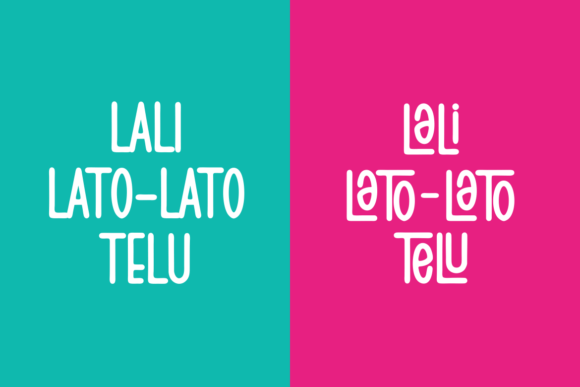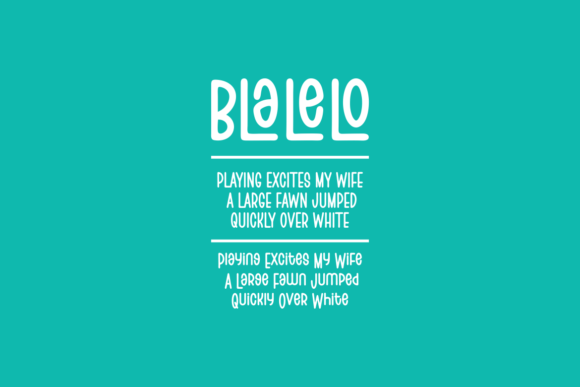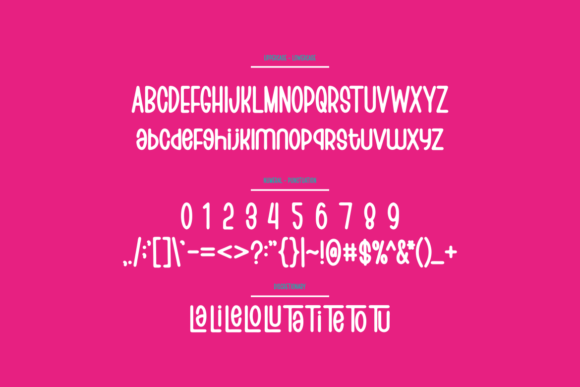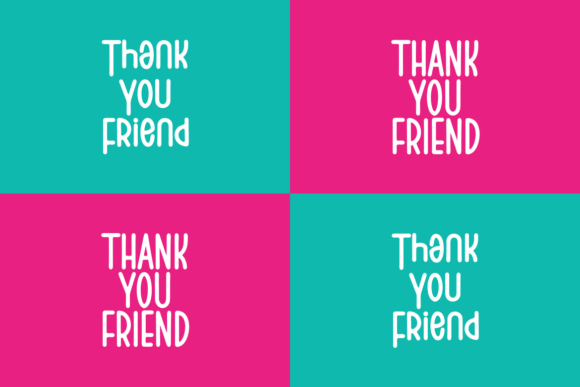
Discover the Endless Possibilities of Blalelo Font
Have you ever sat in front of your computer, staring at a blank screen, waiting for the perfect idea to strike? For designers, this moment is a familiar one. It’s the moment when creativity takes over, and the possibilities seem endless. And that’s exactly what Blalelo Font is all about – unleashing your imagination and bringing your designs to life.
Blalelo Font is a charming, handwritten font that’s perfect for adding a touch of personality to your designs. Its natural, unique style makes it incredibly versatile, allowing you to use it for a wide range of projects, from logos and branding to quotes and social media graphics. Whether you’re a seasoned designer or just starting out, Blalelo Font is a valuable addition to your toolkit, offering a world of creative possibilities at your fingertips.
Key Features of Blalelo Font
- Font Family: Blalelo Font is a unique, modern sans-serif font family designed for digital use.
- Unique Characteristics: Blalelo Font features a distinctive blend of geometric and organic elements, resulting in a unique and modern aesthetic that sets it apart from other sans-serif fonts.
Blalelo Font Review
I recently had the chance to work with the Blalelo Font, and I must say it’s a unique and intriguing addition to any design project. ✨ The font’s bold and quirky characteristics make it perfect for creating eye-catching headlines or titles.
Here are some of the things that I found worked well with the Blalelo Font:
- ✨ The font’s bold weight is ideal for making a statement and grabbing the user’s attention.
- ✨ The unique character set is perfect for creating a brand identity or adding a touch of personality to a design.
- ✨ The font is highly customizable, allowing designers to tweak the spacing and size to fit their specific needs.
- ⚠️ The font may be too bold or overpowering for smaller text sizes, making it difficult to read.
- ⚠️ The unique character set may not be compatible with all operating systems or devices, which could lead to display issues.
- ⚠️ The font’s quirky nature may not be suitable for all design projects, such as formal or professional applications.
Overall, I found the Blalelo Font to be a great addition to my design toolkit. While it may have some limitations, its unique characteristics make it perfect for designers looking to add a touch of personality to their work. With careful consideration and customization, the Blalelo Font can be a valuable asset for any design project.
Tips for Getting the Most Out of Blalelo Font
Blalelo Font is a unique and elegant font, making it perfect for creative projects. To get the most out of it, use it in conjunction with other creative fonts to create a visually appealing design. You can also experiment with different font sizes and colors to add depth and emphasis to your text.
Blalelo Font is commonly used in creative projects, such as:
• Magazine and newspaper designs
• Brochures and flyers
• Social media graphics
• Wedding invitations and stationery
• Branding and marketing materials